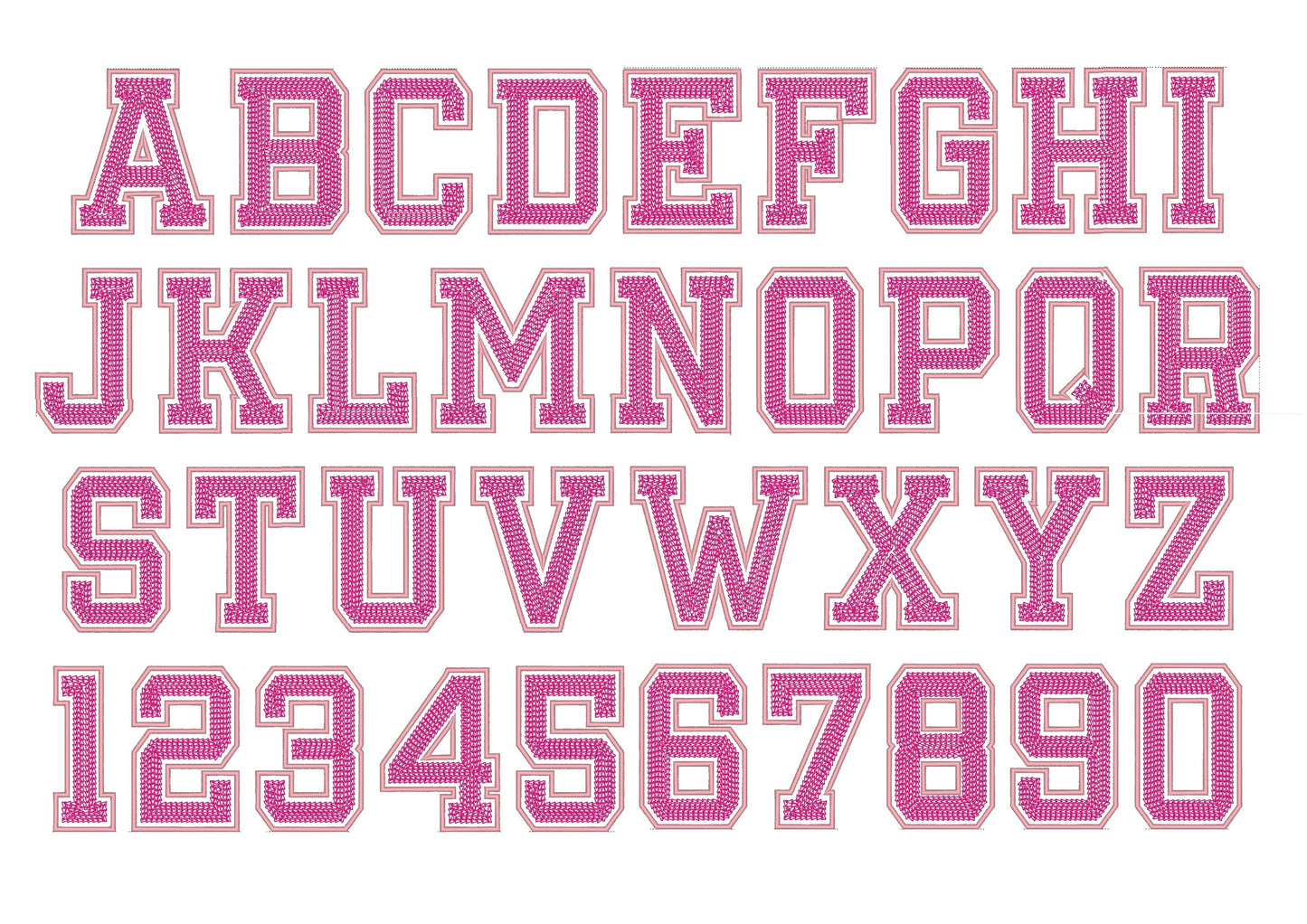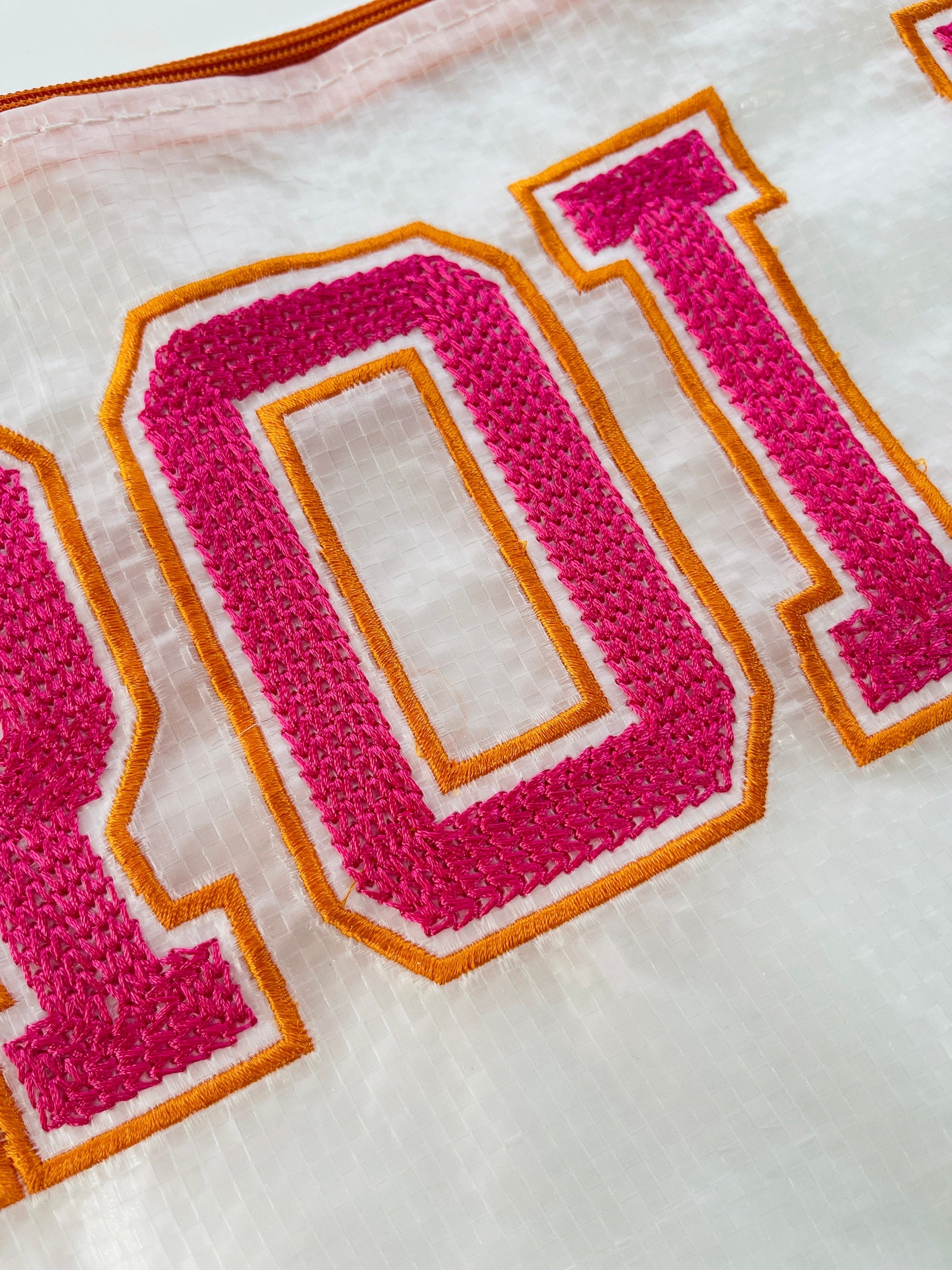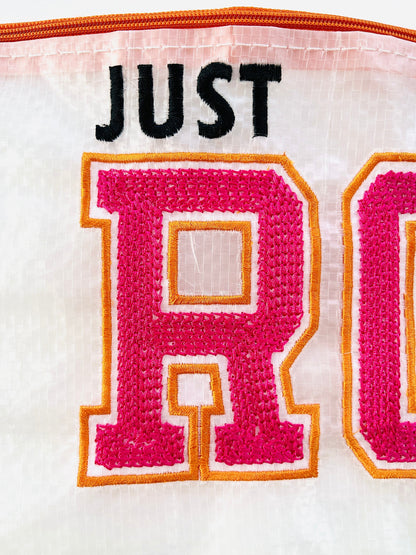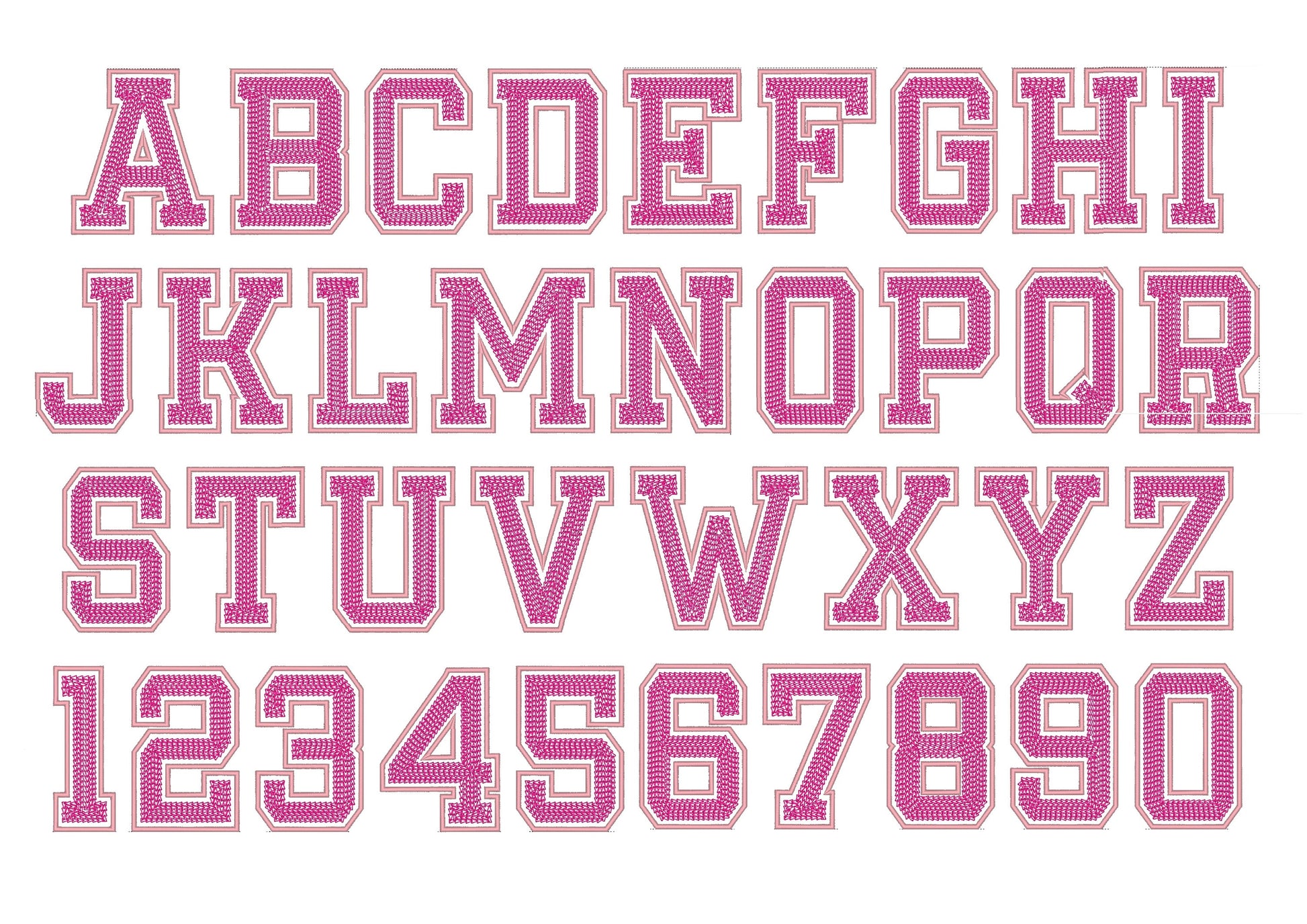
Chain Stitch Varsity Sport Athletic Collegiate Font
Included: Uppercase A-Z, Numbers 0-9
A varsity collegiate font with a chain stitch chenille look. Made for team jackets, sweatshirts and school shirts.
Uppercase letters A to Z and numbers 0 to 9, in seven sizes: 3, 3.5, 4, 4.5, 5, 5.5 and 6 inches. Outline letters filled with a chain-link texture.
• Chain stitch varsity letters A to Z
• Numbers 0 to 9
• 7 sizes, 3 to 6 in